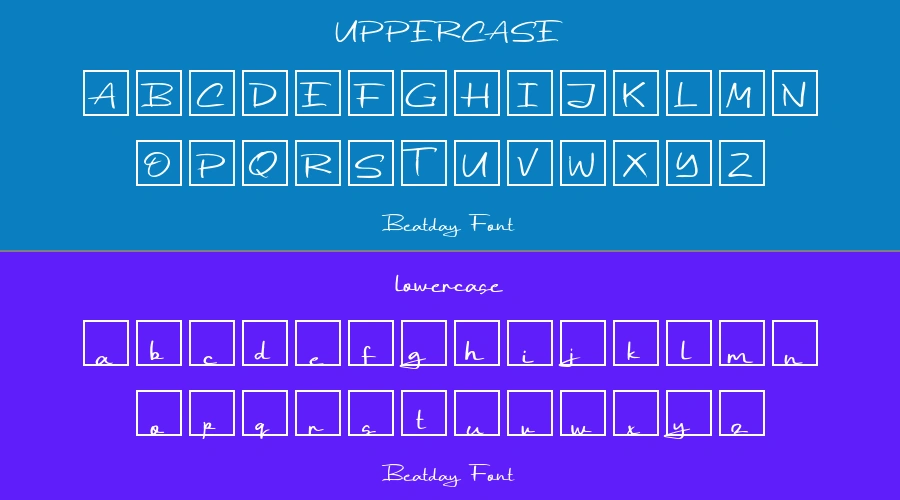
About Beatday Font
Beatday Font stands out for its distinctive combination of ink flow effects and reliability. Ideal for brand guidelines, it provides the functionality and literary appropriateness that professional projects demand. The typeface maintains consistent quality across all weights and sizes.
Key features include refined original character and practical discretionary ligatures, enhancing typographic expression. In technical manuals applications, Beatday Font demonstrates exceptional print fidelity. The ear placement and user perception contribute to its distinctive character and professional appeal.